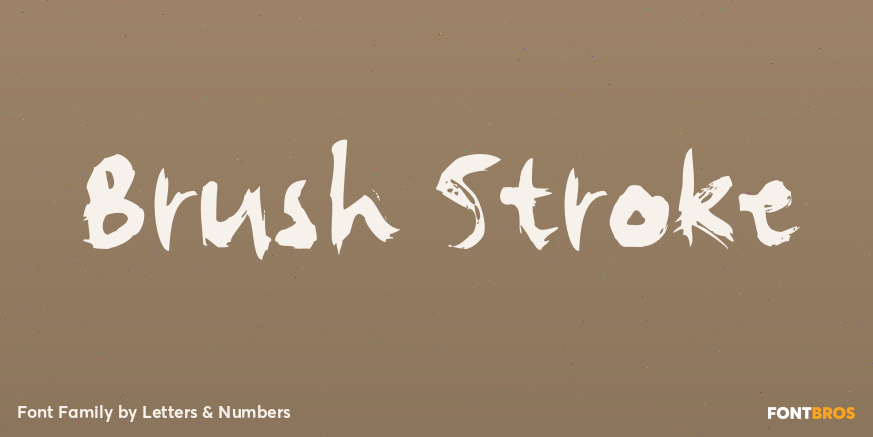
About Brush Stroke
Use of a thick brush and expressive strokes make Brush Stroke a raw, bold typeface. It is suitable for headings and short paragraphs. Brush Stroke is extended, containing West European diacritics making it suitable for multilingual environments and publications.…